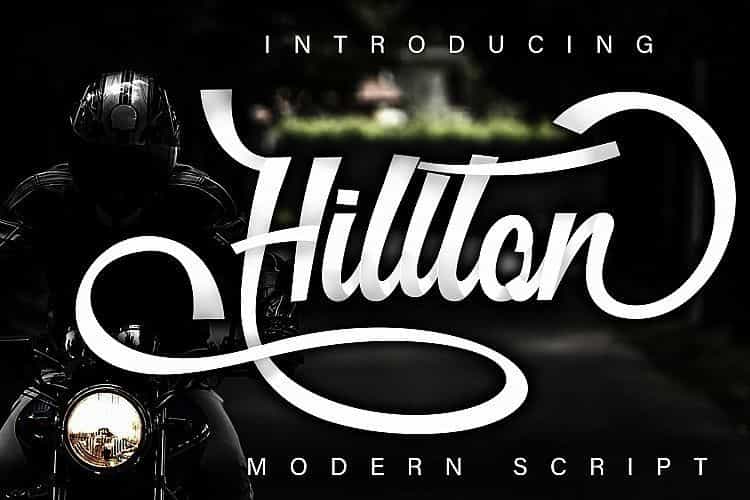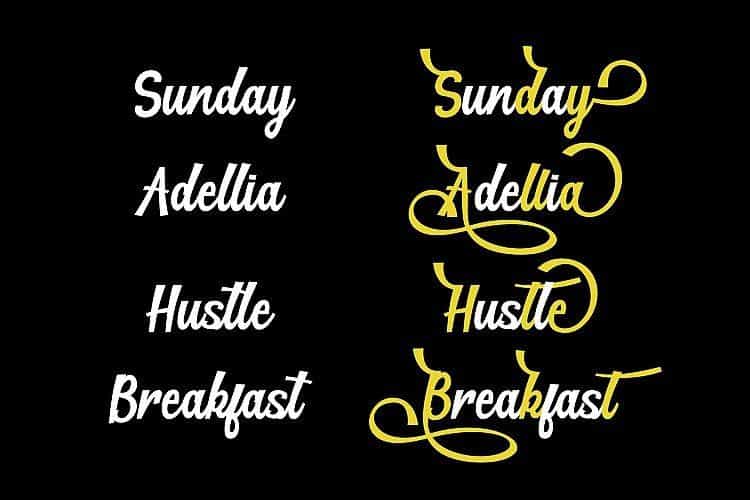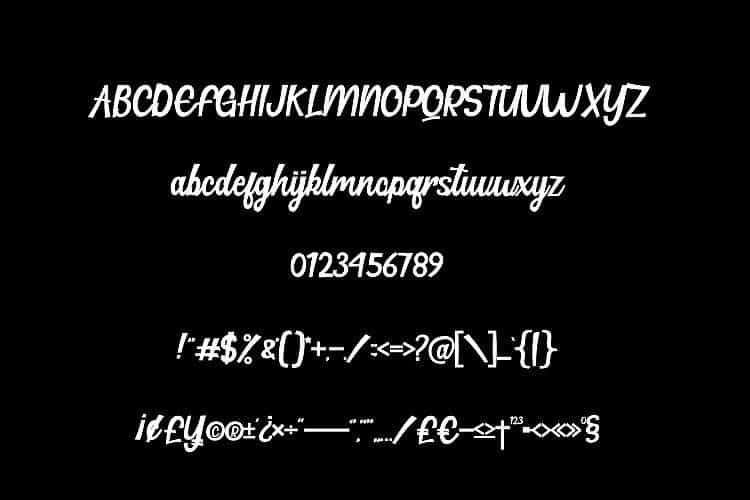
Hillton is a hand-written script font which was made with the help of baseball style writing. This is the font that will make you say any message with confidence and style, so that you can even more customize your text!